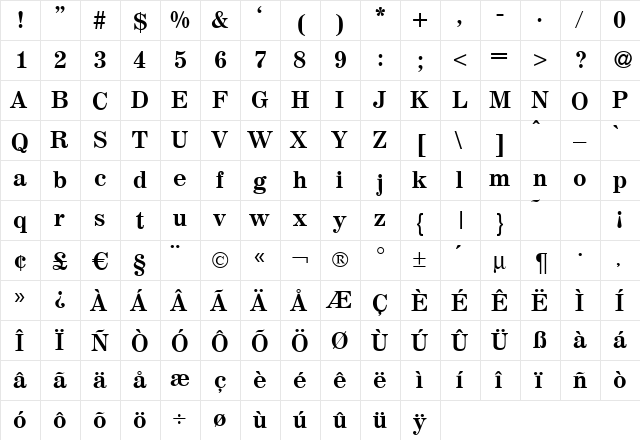
Magazine Bold
Design Context for Magazine Typeface
Magazine offers clean, dependable letterforms without strong stylistic allegiance, making it a practical choice for designers who need flexibility. Its bold stroke weight gives it real presence on the page.
Pro Tip: Use Magazine in both headline and body roles to test its range before committing to a single application.